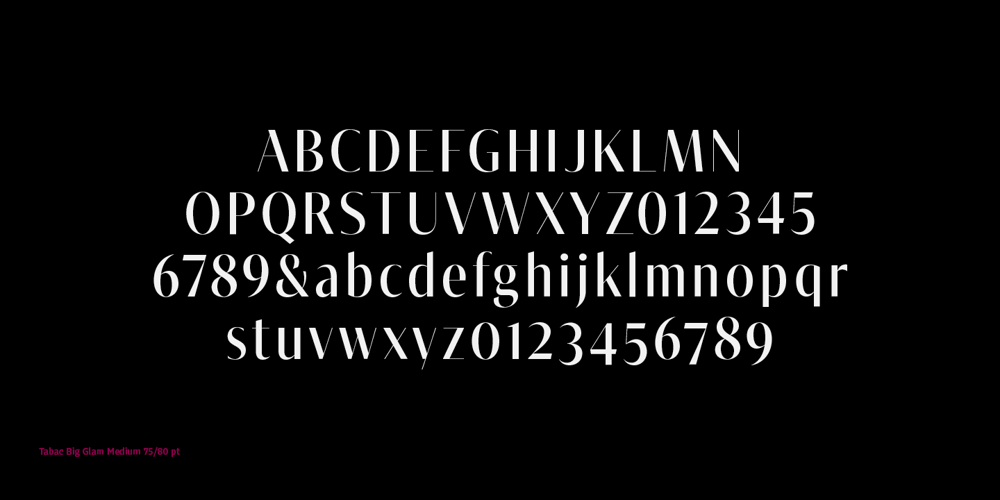
Tabac Big Glam Font Family was designed by Tomáš Brousil and published by Suitcase Type Foundry. Tabac Big Glam contains 16 styles and family package options. Tabac Big Glam probably stretches the Tabac super-family’s boundaries the furthest. While it’s based on the serif version, it achieves an especially surgical cleanliness and extremely sharp typesetting by completely letting the serifs go. Despite this, the text isn’t boring for a moment — the angled cut of the stems on b, d, h, k, l, the open loop on g or the rounded variant of the italic y, which can be called by turning on the stylistic set, reliably banishes any suspicions of the letters’ monotony.